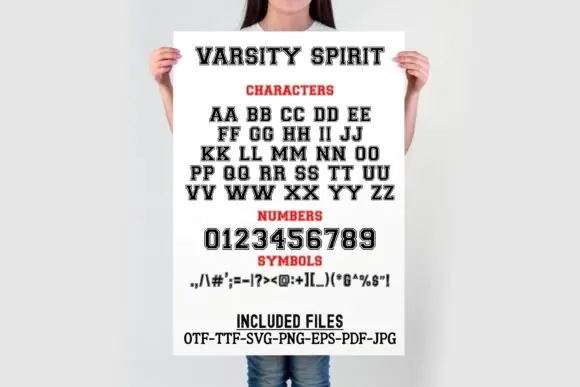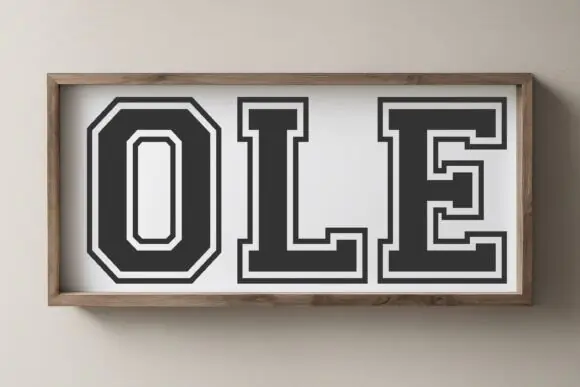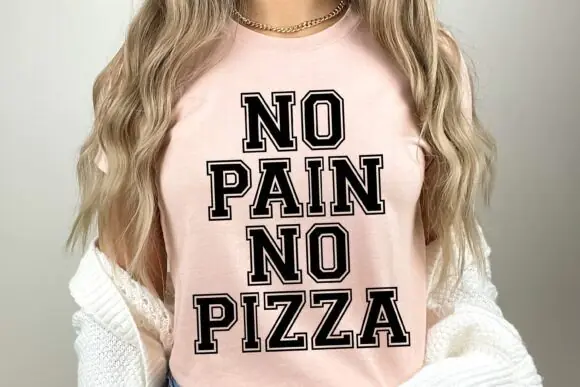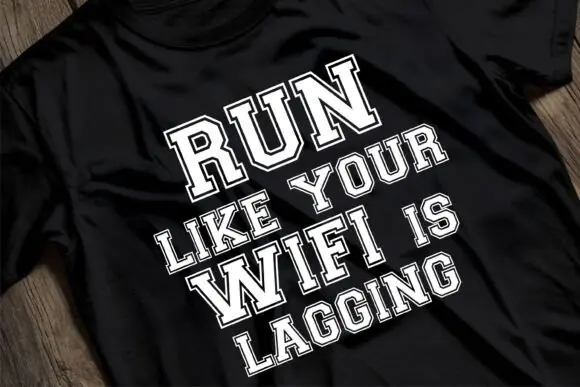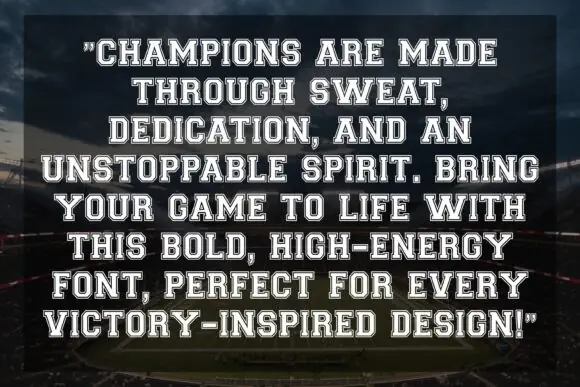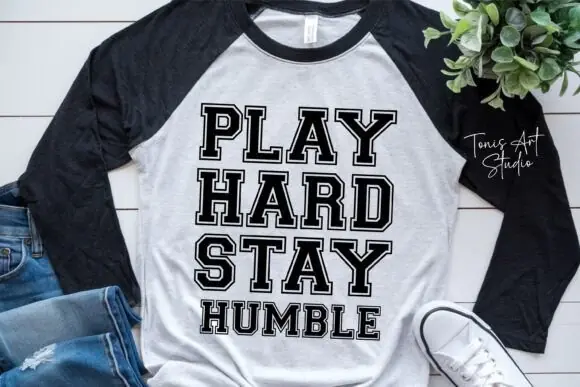
Varsity Spirit Font SVG – Bold College Alphabet Typeface for Sports Designs, Monograms, Team Logos, Jerseys, Cricut Projects, School Spirit Graphics & Athletic DIY Crafts
Create bold, sporty, and energetic designs with Varsity Spirit Font, a classic varsity-style typeface made for college alphabet projects, school spirit designs, athletic graphics, monograms, jerseys, and custom sports-themed artwork. With strong varsity letters and a clean athletic look, this font is perfect for designs that need a powerful school, team, or championship-style feel.
Varsity Spirit Font is ideal for Cricut projects, Silhouette crafts, team logos, sports posters, jersey designs, school event graphics, college-themed apparel, monogram SVGs, stickers, banners, decals, classroom decorations, printable artwork, and custom DIY products. Its bold letter structure makes it highly visible and easy to use for both digital and print designs.
College alphabet designs, sports graphics, school spirit projects, team logos, jerseys, monograms, Cricut crafts, Silhouette projects, athletic apparel, stickers, decals, banners, posters, printable designs, classroom decor, custom DIY gifts, and tournament-themed artwork.
Key Features
• Bold varsity-style letter design
• Perfect for college, school, and sports themes
• Great for monograms, jerseys, and team logos
• Ideal for cutting machines and DIY craft projects
• Strong athletic look for both digital and print designs